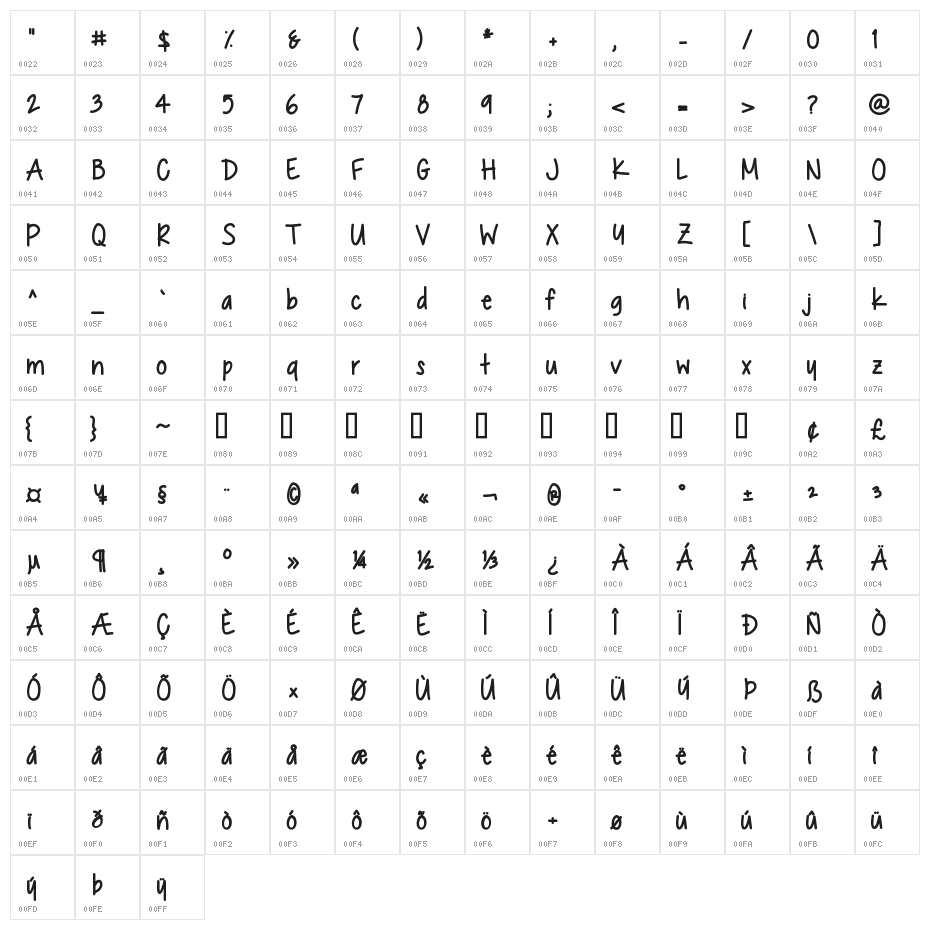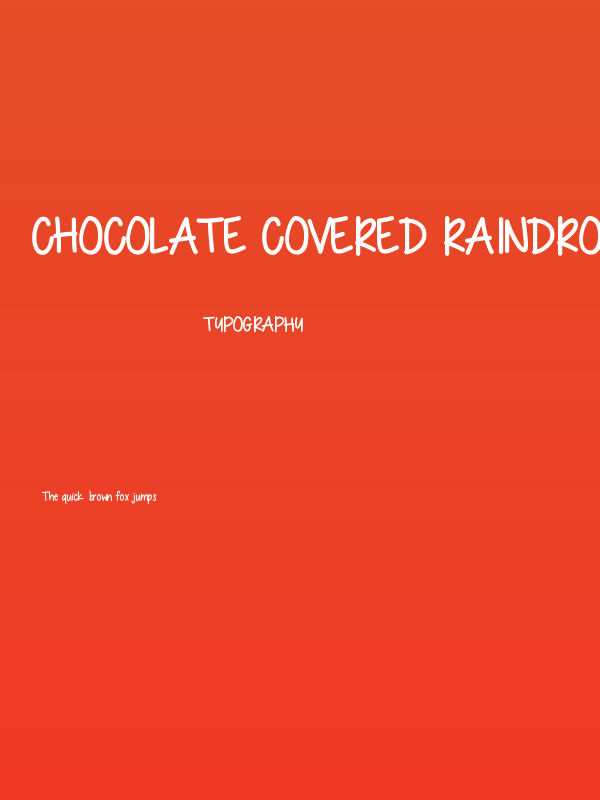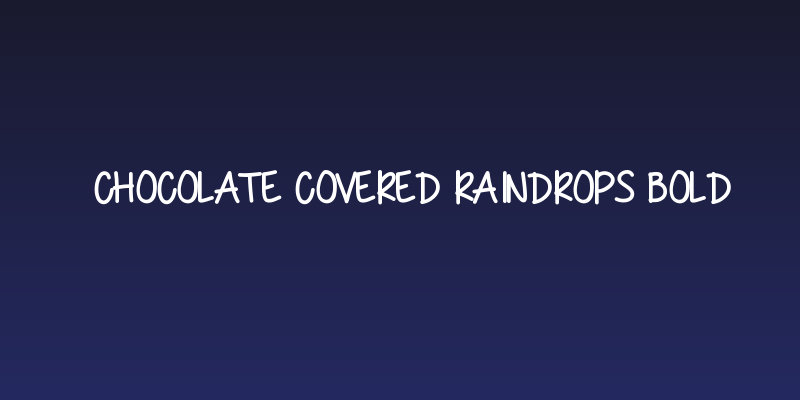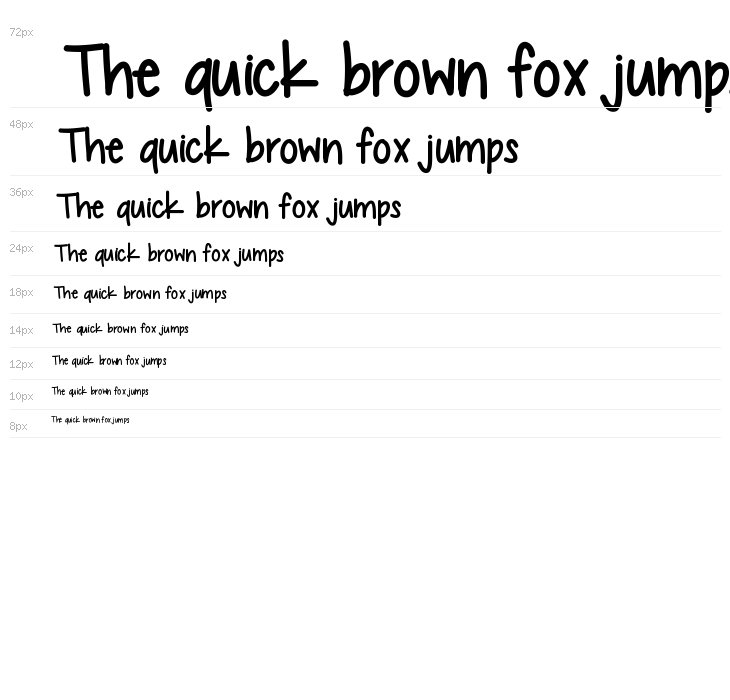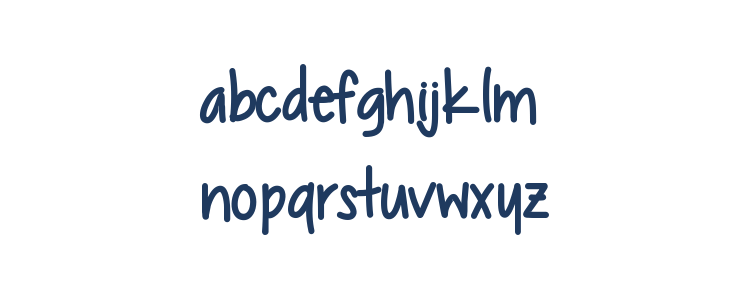
Chocolate Covered Raindrops Bold Font
Chocolate Covered Raindrops Bold Description
This playful and bold font exudes a whimsical and casual vibe, characterized by its handwritten style. The letters are rounded and slightly irregular, giving it a friendly and approachable appearance. The strokes are consistent in weight, providing a uniform look across all characters. The uppercase and lowercase letters maintain a cohesive style, while the numerals and special characters complement the overall design. This font is ideal for projects that require a personal touch, such as invitations, greeting cards, or playful branding materials.
| Proposed Projects | Ideal for invitations, greeting cards, playful branding, and personal projects. |